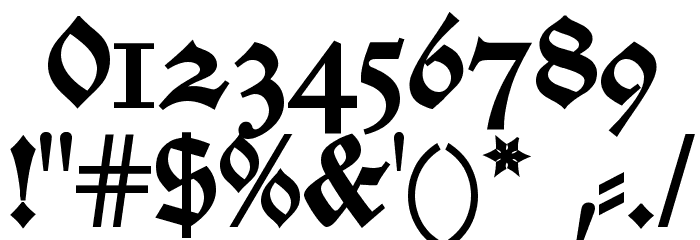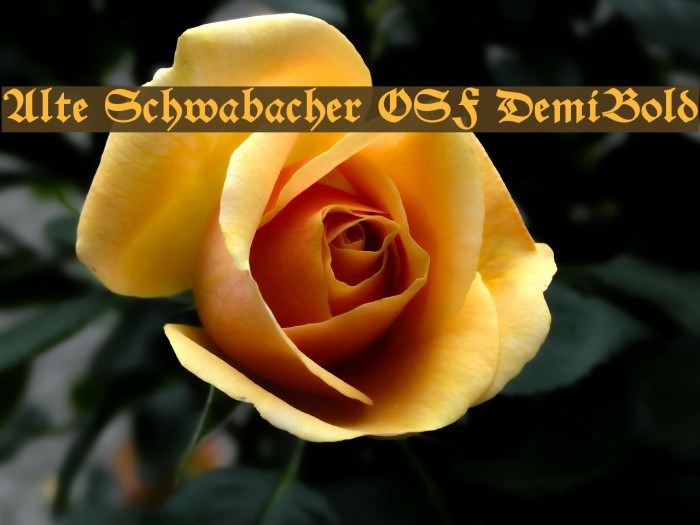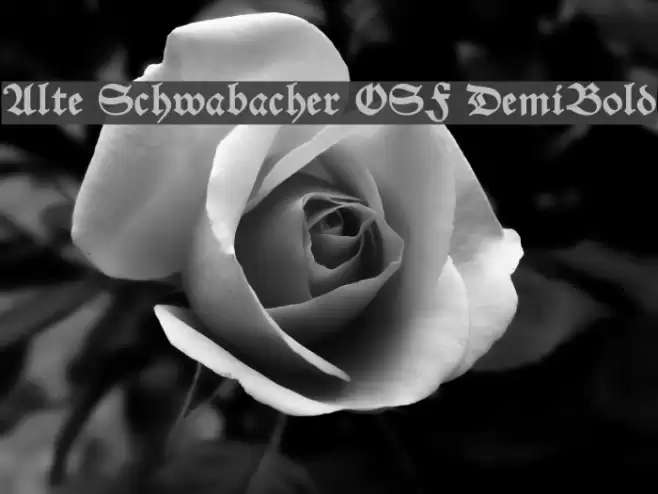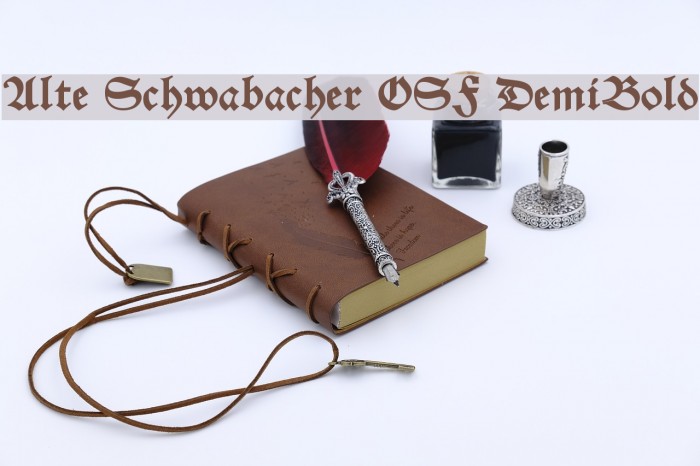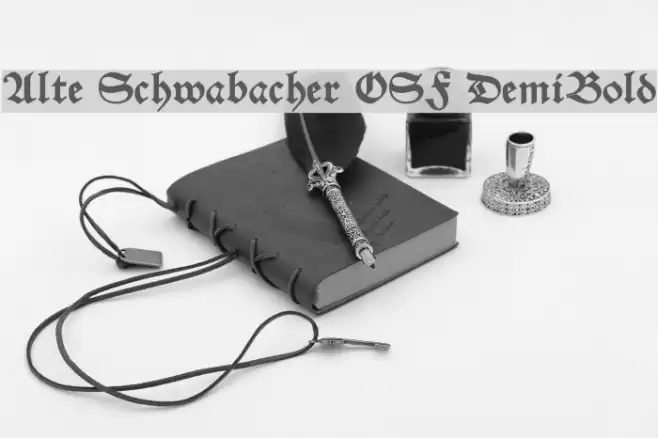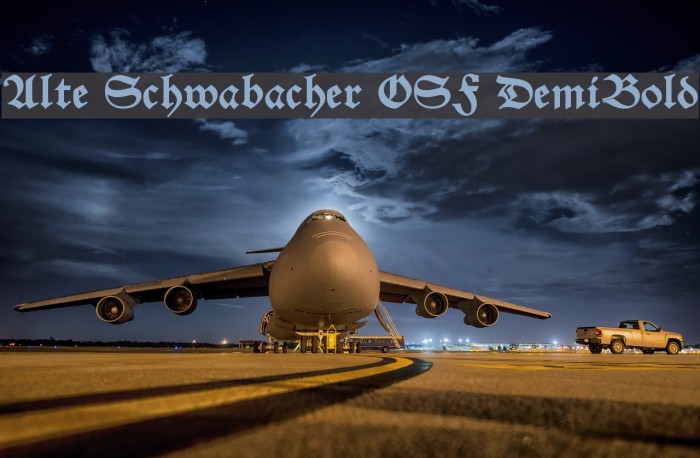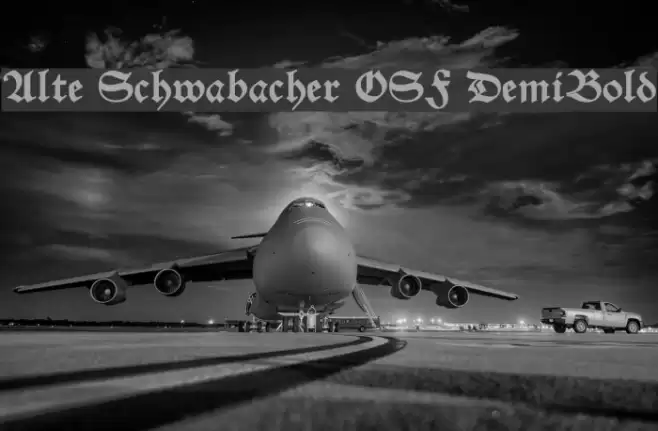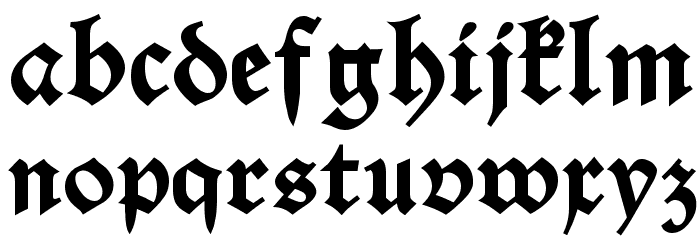
Alte Schwabacher OSF DemiBold Font
Alte Schwabacher OSF DemiBold Description
This font exudes a historical and traditional charm, reminiscent of medieval script styles. The characters are bold and ornate, featuring sharp angles and intricate detailing that evoke a sense of antiquity. The uppercase letters are particularly elaborate, with flourishes and embellishments that enhance their decorative appeal. The lowercase letters maintain a consistent style, with a slightly more subdued design that complements the uppercase set. Numbers and special characters are crafted with the same attention to detail, ensuring a cohesive look across all elements. This font is ideal for projects that require a touch of historical elegance and sophistication.
| Overall Style | Vintage |
| Proposed Projects | Ideal for historical documents, book covers, event invitations, and branding that requires a classic touch. |